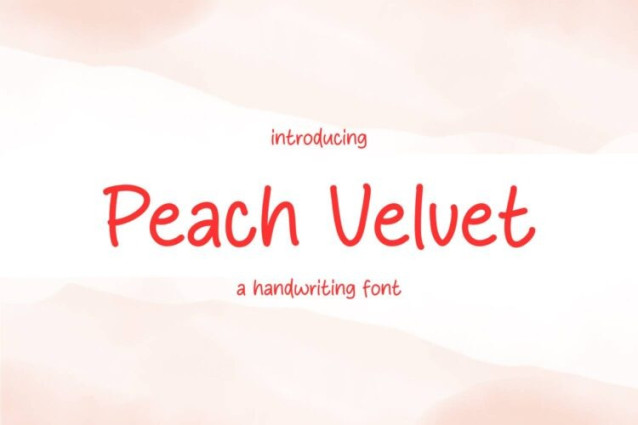
Peach Velvet Font
Peach Velvet Font is a simple and friendly handwritten font. Its natural and unique style makes it incredibly fitting to a large pool of designs. The only limit is your imagination!